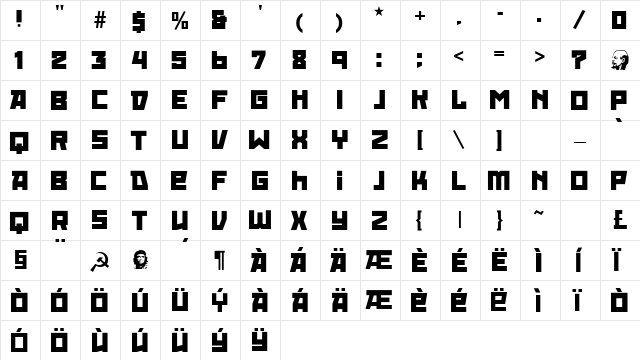
Red October Fat
| Foundry | Ivan Filipov |
| Designer | Ivan Filipov |
Design Context for Red October Typeface
Red October is a composed and adaptable typeface that performs quietly and consistently across a wide range of design contexts.